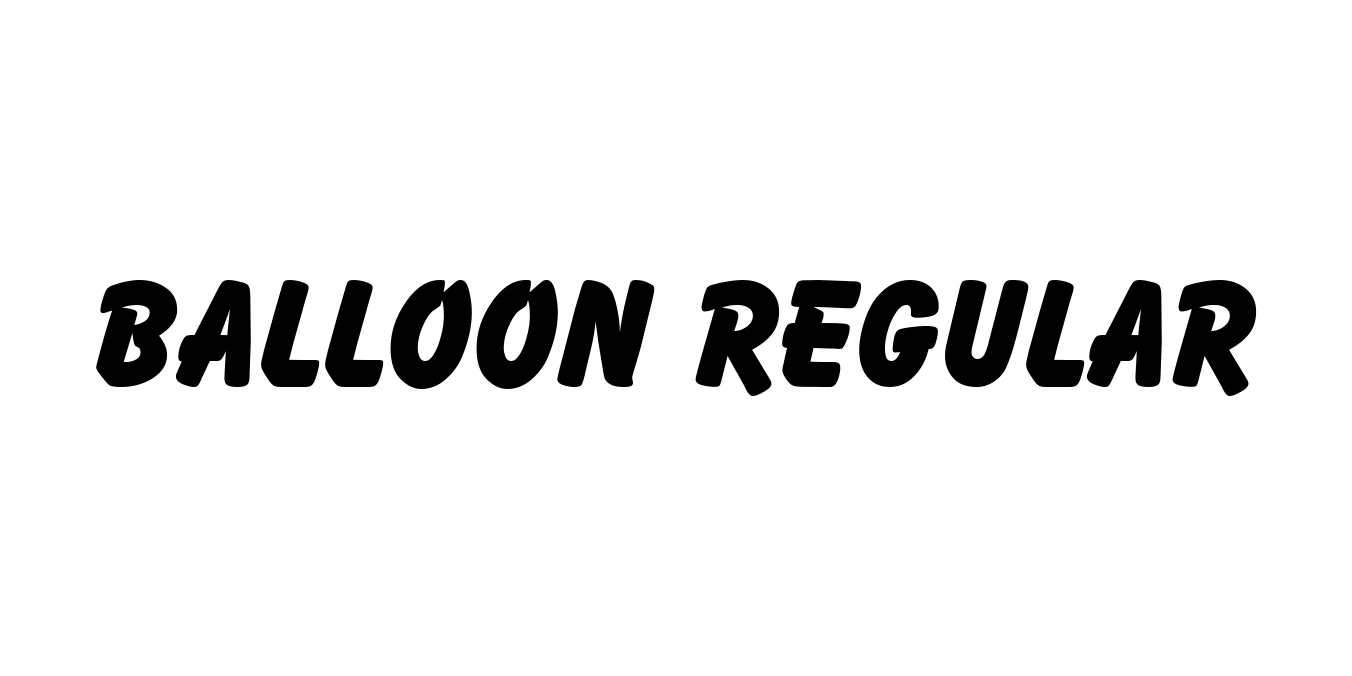
Balloon Regular
Designed by Max R. Kaufmann
| Category | Script / Brush |
| Designer | Max R. Kaufmann |
| Similar Fonts | Dom Casual, Flash, Brush Script MT |
Balloon Regular was designed by Max R. Kaufmann in 1939 for the American Type Founders (ATF). It was originally created to compete with the popular Speedball-style hand lettering used in commercial advertisements and showcards. The typeface captures the essence of informal, hand-drawn brush lettering, featuring bold, sans-serif characters that look as if they were quickly executed with a heavy felt-tip marker or a square-edged brush.
Throughout its history, Balloon has become a quintessential choice for comic book lettering and casual display work. Unlike many cursive scripts of the mid-20th century, Balloon is a non-connecting script, which ensures high legibility even in crowded layouts. Its slightly slanted, upbeat appearance evokes a sense of nostalgia and friendly urgency, making it a timeless tool for designers looking to replicate mid-century graphic styles.
Balloon Regular Best Uses
Excellent for punchy headlines and call-to-action banners.
Widely used for dialogue bubbles and sound effect typography.
Perfect for casual storefront signs and restaurant menus.
Ideal for logos seeking a friendly, 1940s-inspired hand-drawn aesthetic.